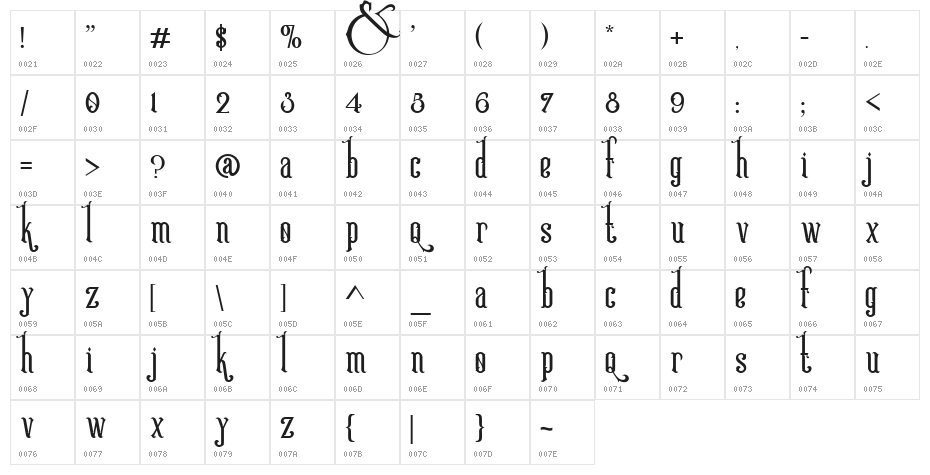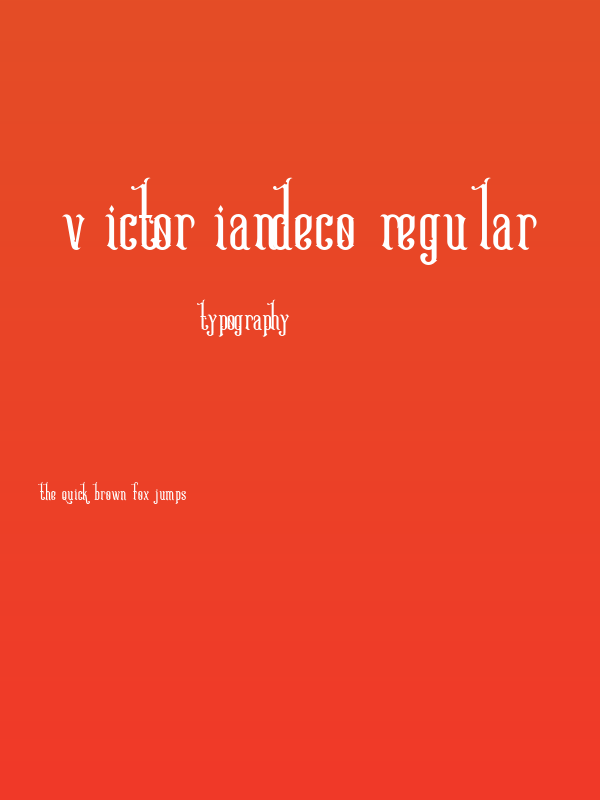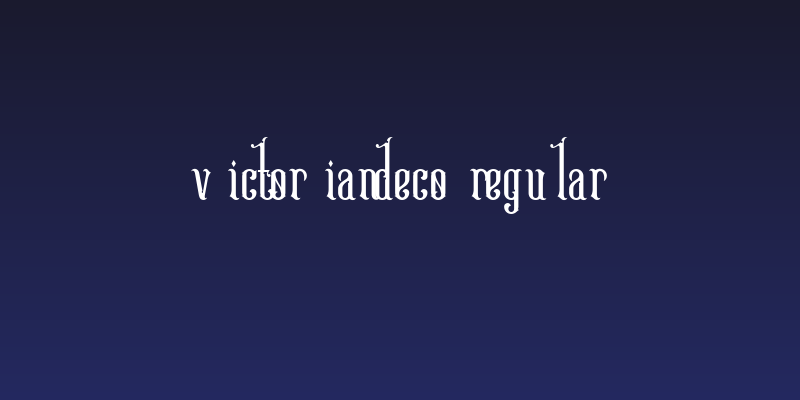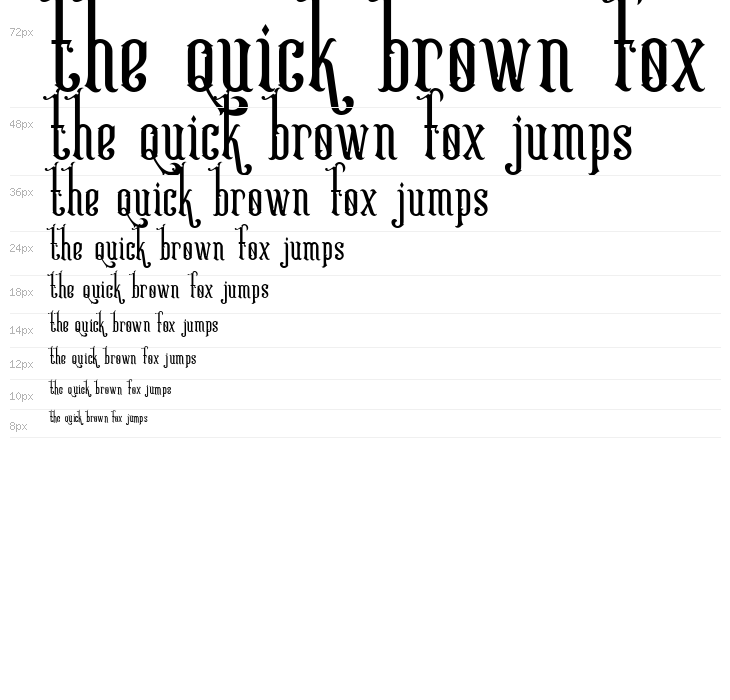
Victoriandeco Regular Font
Victoriandeco Regular Description
This font exhibits a distinct Victorian-inspired design, characterized by its ornate and decorative elements. The letters feature intricate curves and flourishes, giving it a classic and elegant appearance. The uppercase letters are tall and narrow, while the lowercase letters maintain a consistent style with unique embellishments. The numbers and special characters are equally ornate, complementing the overall aesthetic. This font is ideal for projects that require a touch of vintage sophistication and decorative flair.
| Proposed Projects | Ideal for wedding invitations, vintage-themed posters, book covers, and branding that requires a classic and elegant touch. |